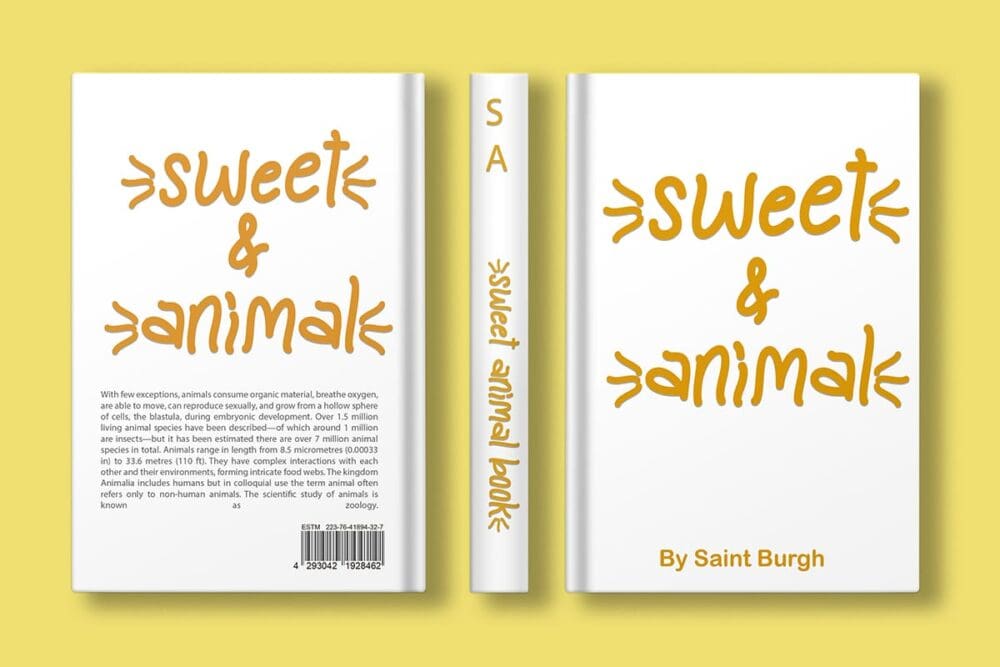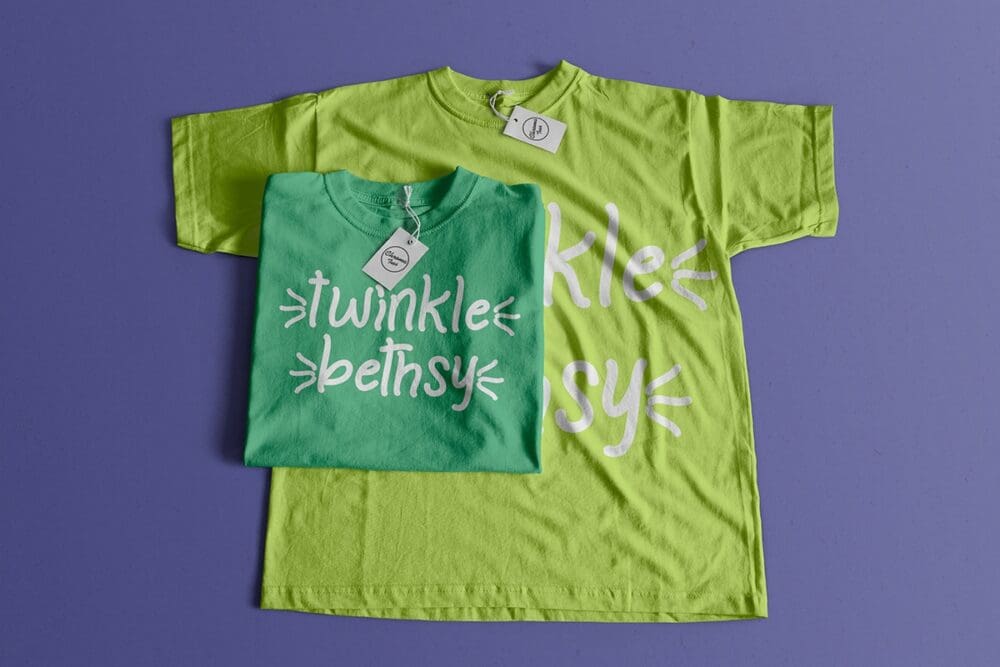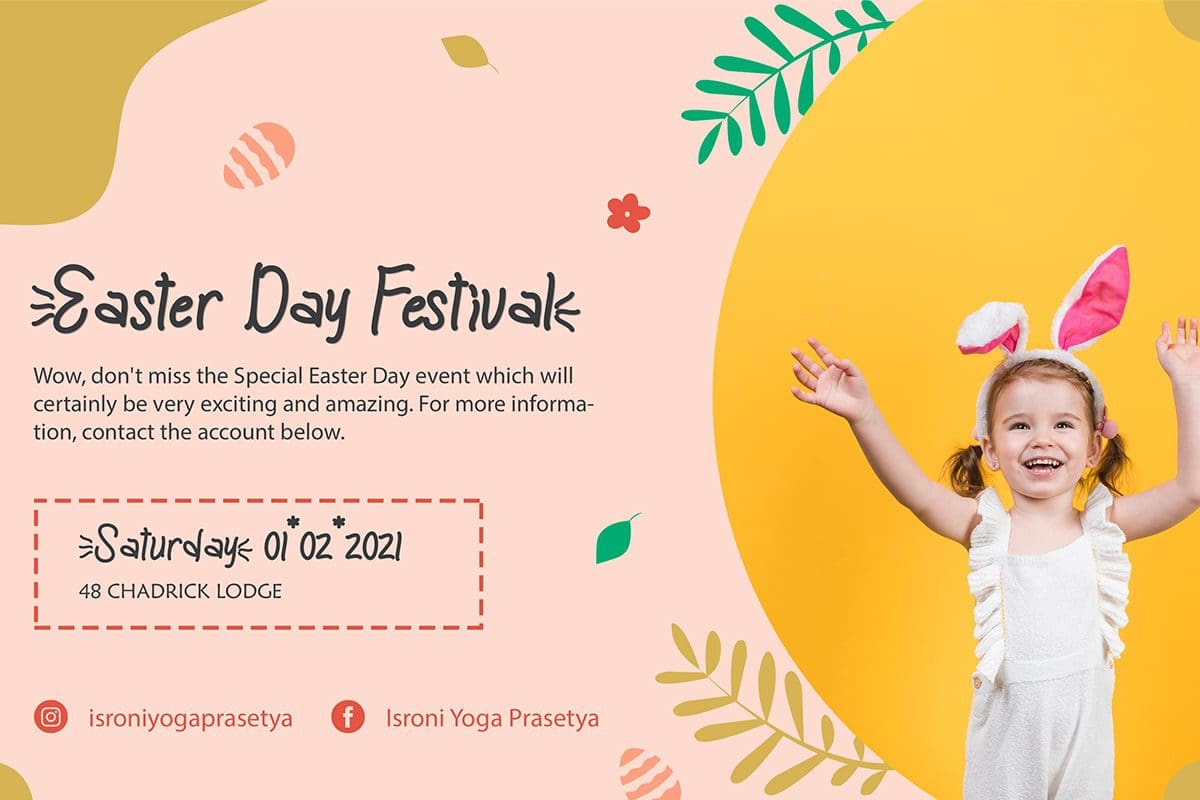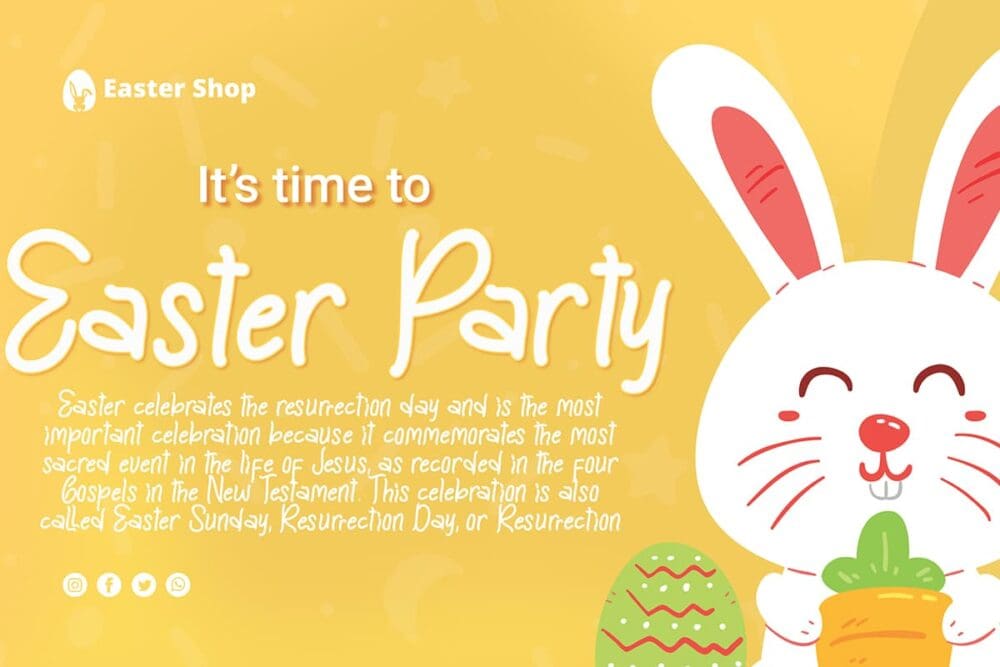
Yellow Easter Font
Yellow Easter is a cool, retro styled and organic display font. No matter the topic, this font will be an incredibly asset to your fonts’ library, as it has the potential to elevate any creation.